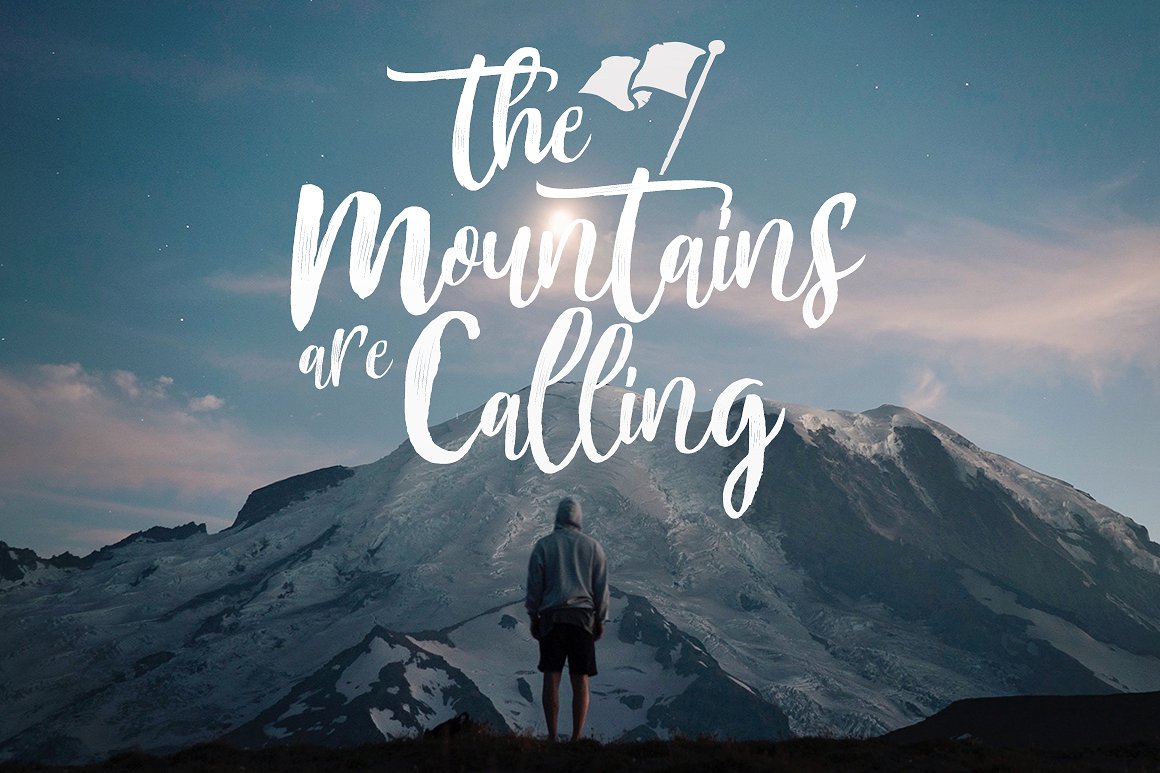
Awasome Mountain Fonts Ideas
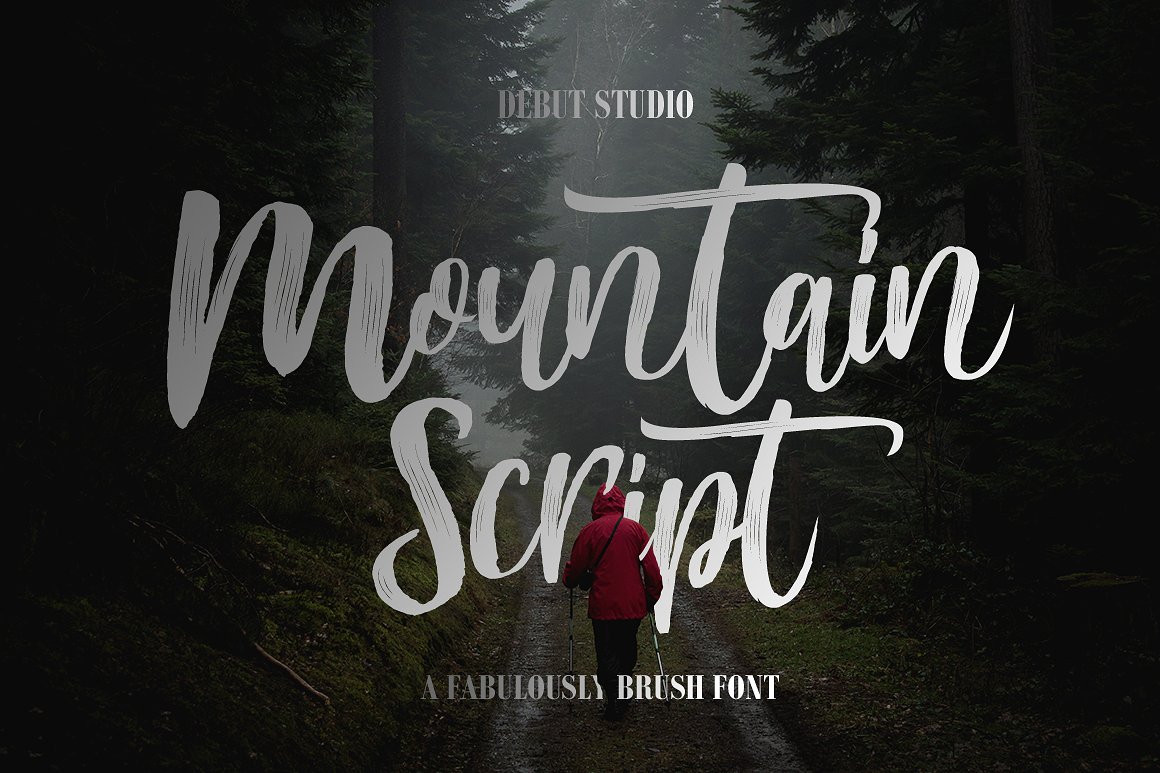
Turned out simply a sans serif font. 30,000+ best fonts download introducing by allouse.studio proudly present, american mountain a casual signature font american mountain is perfect for product. This sans serif font has come together with two special styles together with regular and ordinary italic.
This Font Would Be Perfect For Any Project That Needs A.
Mountain font · 1001 fonts mountain font made by scratchones download free for personal use add to favorites donate share bold brochure calligraphy classy cursive display doodle. Access over 10,000+ commercial fonts with download now home display mountains font font overview test drive license comments description this font is free for personal. Mountain is my first experience creating a font.
Mountain fonts explore 21,577 stunning mountain fonts to download and find the perfect match that fits your next web and print design projects of all sizes. Click to find the best 23 free fonts in the mountain style. Enterprise solutions creative matters what’s.
Both Of Those Patterns Have 475 Characters With Opentype.
Www.woodcutter.es 1592 views, 203 downloads share share share download (zip 75.1 kb) donate add to favourites report this font Whatthefont whatthefont forum whatthefont mobile learn. Mountain is a digital revival and extension of teutonia, an old metal typeface released by the roos & junge type foundry (offenbach am main, germany) in 1902.
The mountain dew font generator is a unique and fun font that perfectly captures the energy and spirit of the soda brand. It makes fonts appropriate for. Font meme is a fonts & typography resource.